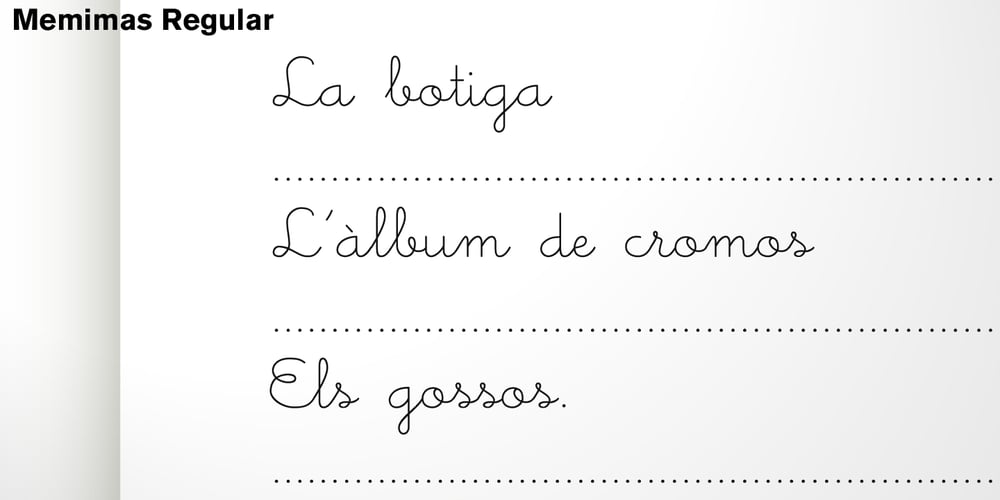
Memimas Font Family was designed by Joan Barjau, José Manuel Urós and published by Type-Ø-Tones. Memimas contains 12 styles and family package options. The Memimas family was commissioned in 1991 by the publisher Barcanova, for a digital version of their model for learning how to write. Memimas has two ductus versions for the capitals and a complete set of ligatures.